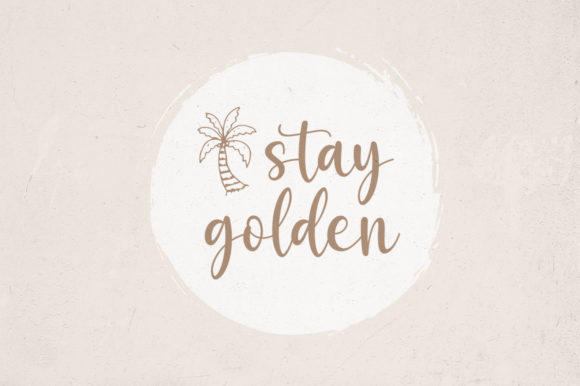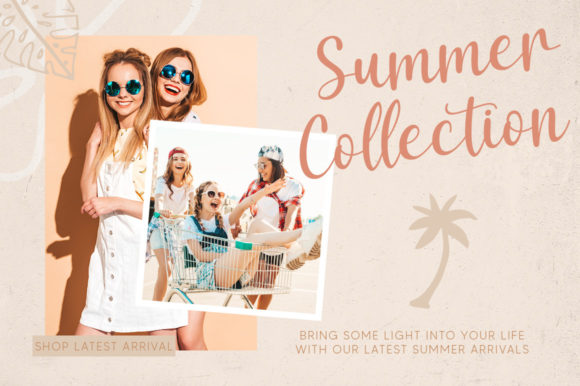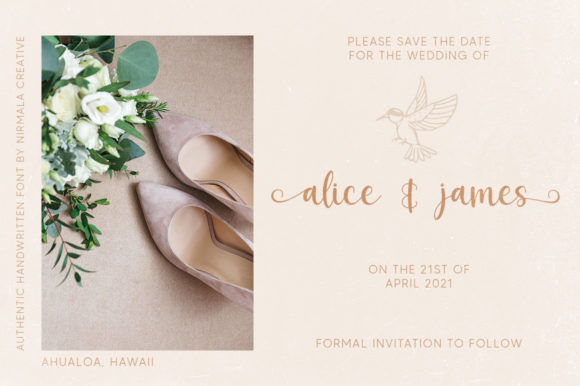
Aloha Font: The Perfect Choice for Designers and Crafters
Are you looking for a font that can add a touch of elegance and sophistication to your designs? Look no further than the Aloha font. This lovely and timeless handwritten font is perfect for creating eye-catching logos, branding, and quotes that will leave a lasting impression on your audience.
What Makes Aloha Font So Special?
The Aloha font is a beautifully crafted handwritten font that is designed to make your designs come alive. Every letter has a unique and beautiful touch, which sets it apart from other fonts. The font is perfect for designers and crafters who want to add a personal touch to their work.
Key Features of Aloha Font
• Handwritten with love: The Aloha font is a handwritten font that is designed to be both elegant and approachable.
• Unique and beautiful touch: Every letter in the Aloha font has a unique and beautiful touch that will make your designs stand out.
• Perfect for logos and branding: The Aloha font is perfect for creating eye-catching logos and branding that will leave a lasting impression on your audience.
• Great for quotes and sayings: The Aloha font is also great for creating beautiful quotes and sayings that will inspire and motivate your audience.
Why Choose Aloha Font?
There are many reasons why you should choose the Aloha font for your next design project. Here are just a few:
• Elegant and sophisticated: The Aloha font is an elegant and sophisticated font that will add a touch of class to your designs.
• Easy to read: The Aloha font is easy to read, even at small sizes, making it perfect for use in a variety of design applications.
• Versatile: The Aloha font is a versatile font that can be used in a variety of design applications, from logos and branding to quotes and sayings.
• Support for glyphs and swashes: The Aloha font is PUA encoded, which means you can access all of the glyphs and swashes with ease, giving you even more creative possibilities.
How to Use Aloha Font in Your Designs
Using the Aloha font in your designs is easy. Here are a few tips to get you started:
• Use it for logos and branding: The Aloha font is perfect for creating eye-catching logos and branding that will leave a lasting impression on your audience.
• Add it to your quotes and sayings: The Aloha font is also great for creating beautiful quotes and sayings that will inspire and motivate your audience.
• Experiment with glyphs and swashes: The Aloha font is PUA encoded, which means you can access all of the glyphs and swashes with ease. Experiment with different combinations to add a unique touch to your designs.
The Aloha font is a lovely and timeless handwritten font that is perfect for designers and crafters who want to add a touch of elegance and sophistication to their designs. With its unique and beautiful touch, PUA encoding, and versatility, the Aloha font is the perfect choice for creating eye-catching logos, branding, and quotes. So why wait? Download the Aloha font today and start creating stunning designs that will leave a lasting impression on your audience.
• What is the Aloha font?: The Aloha font is a lovely and timeless handwritten font that is perfect for creating eye-catching logos, branding, and quotes.